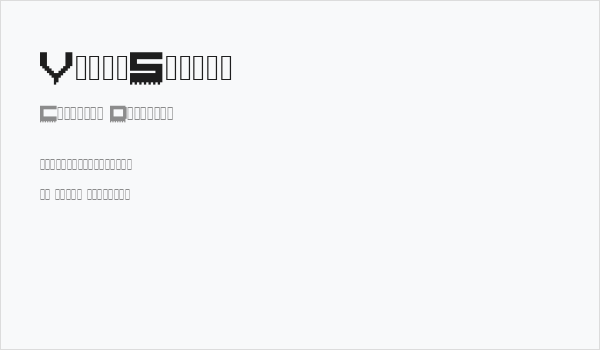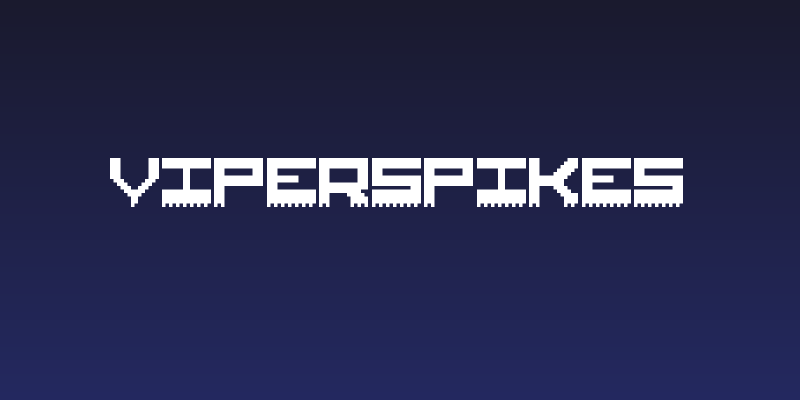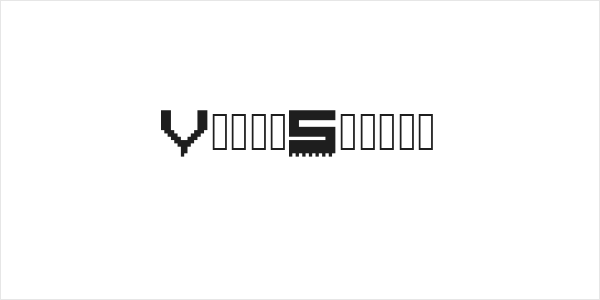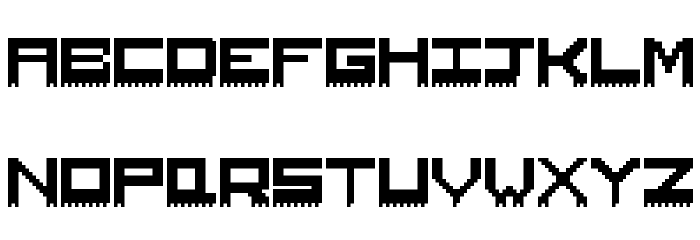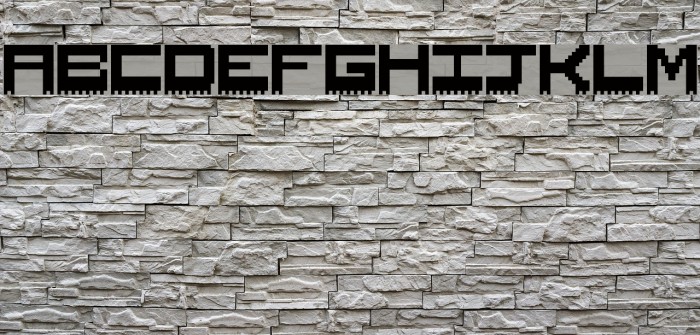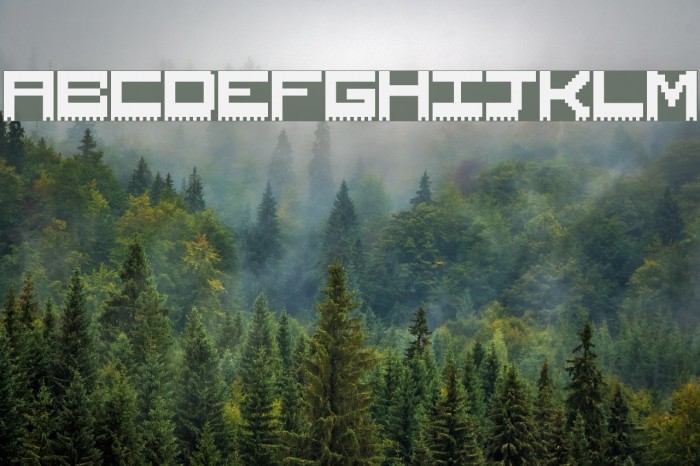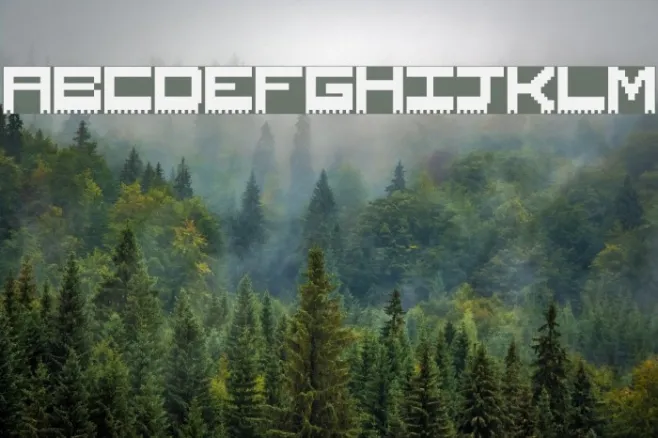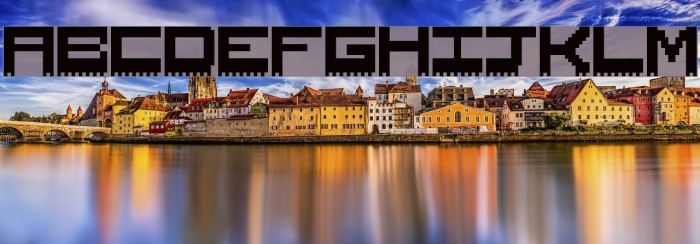
ViperSpikes Font
ViperSpikes Description
This font features a bold, geometric design with a distinct spiked appearance at the bottom of each character, giving it a unique and edgy look. The uppercase letters are uniform in height and width, creating a cohesive and structured appearance. The sharp angles and straight lines contribute to its modern and futuristic style. The font's design is reminiscent of digital or pixel art, making it suitable for projects that require a tech-savvy or avant-garde aesthetic. The consistent spacing between characters ensures readability while maintaining its distinctive style.
| Proposed Projects | Ideal for video game titles, tech-related branding, futuristic posters, and digital artwork. |